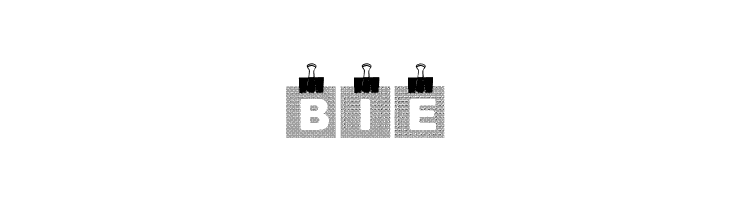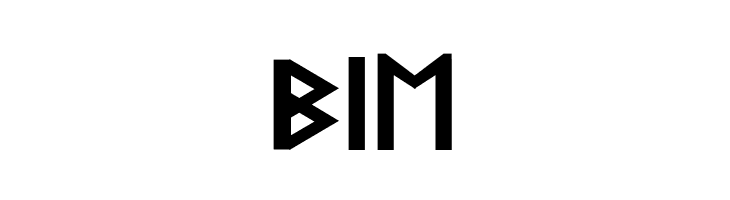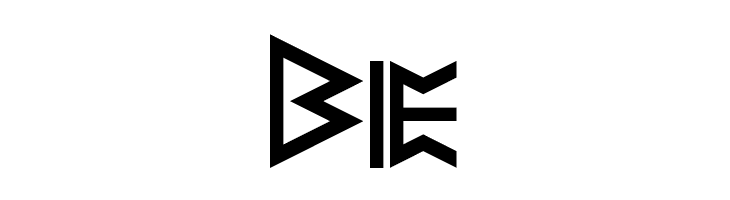
A sleek, modern oblique font with sharp angles and a futuristic aesthetic.
A modern, geometric font with rounded edges and consistent stroke width.
A bold, decorative font with a three-dimensional outline effect.
A modern, dotted font with a playful and unique design.
A bold, modern sans-serif font with geometric influences and high legibility.
A bold, modern serif font with high contrast and sharp serifs.
A shadowed blackletter font with intricate Gothic details.
A distressed, grunge-style font with jagged edges and a chaotic appearance.
A bold, geometric font with a modern and playful style.
A classic serif font with an elegant italic slant and refined serifs.
A bold, dot-based font with a digital, pixelated style.
A modern, elegant font with sharp and smooth elements, ideal for versatile applications.
A modern outline font with a double-line effect, offering a unique and dimensional look.
An edgy, hand-drawn font with elongated, distorted letterforms and a rebellious style.